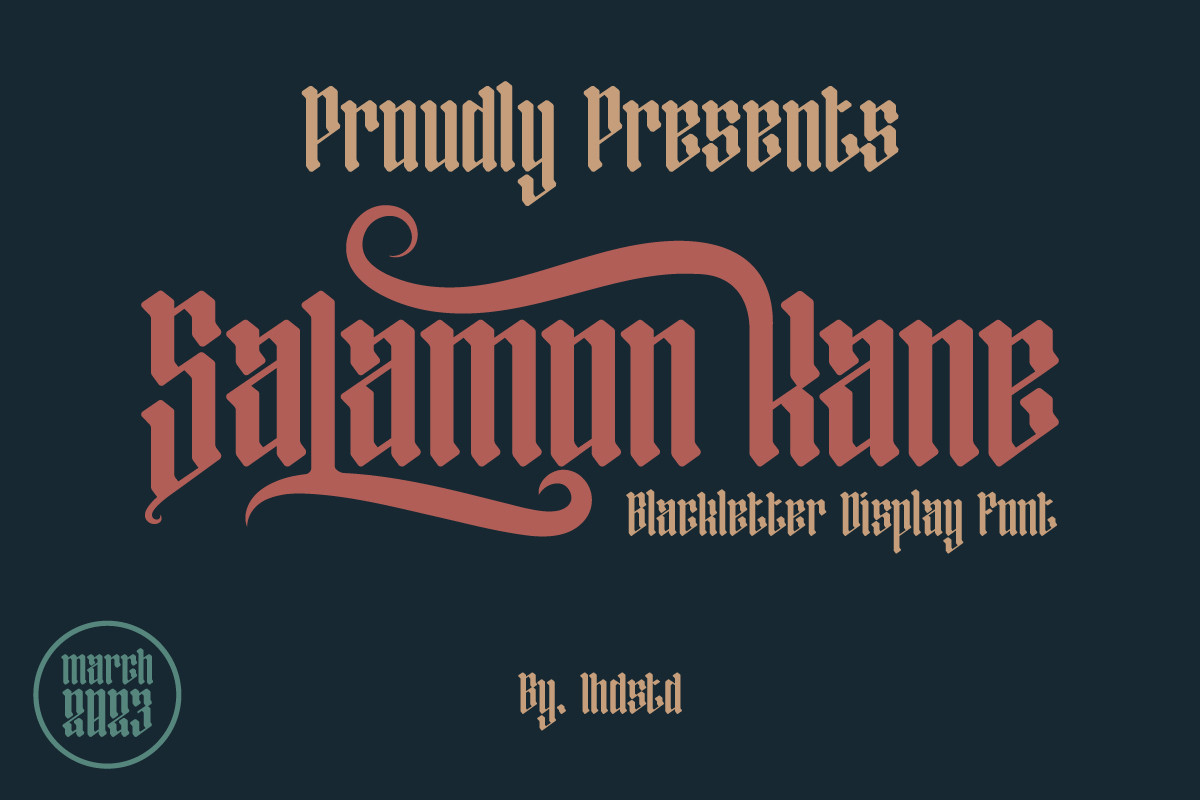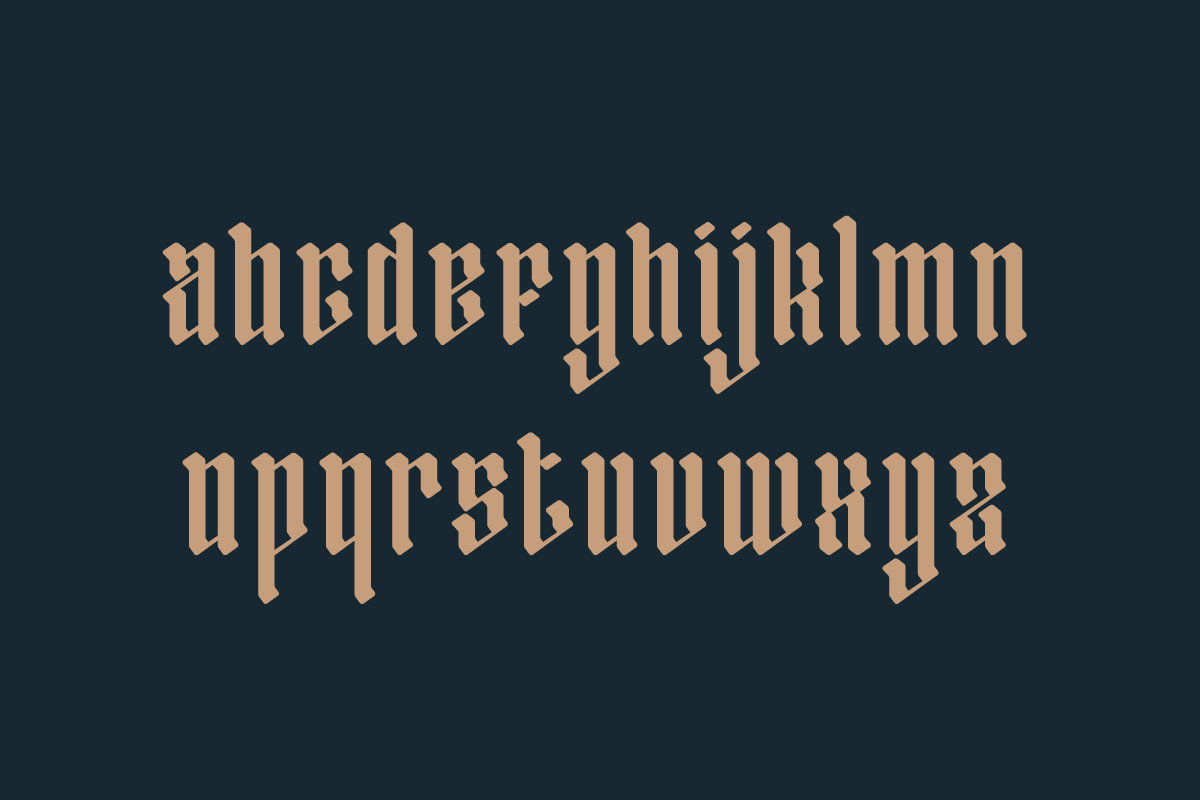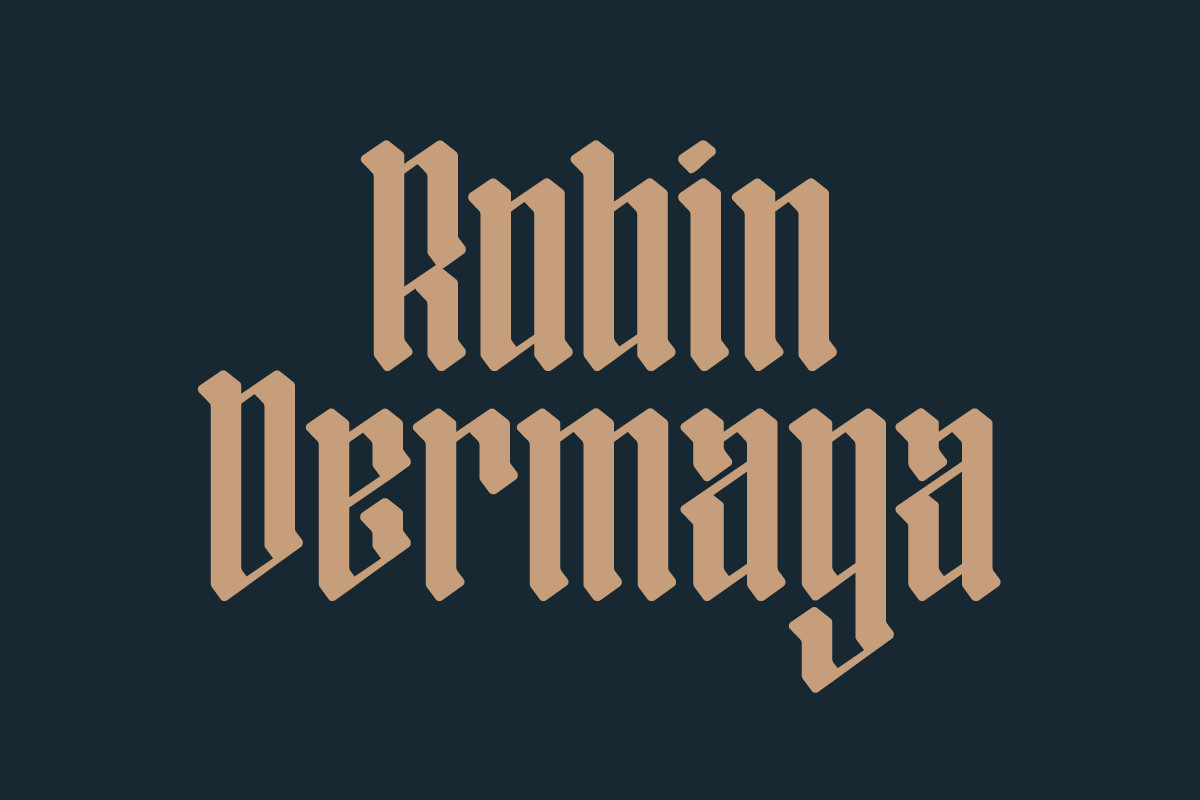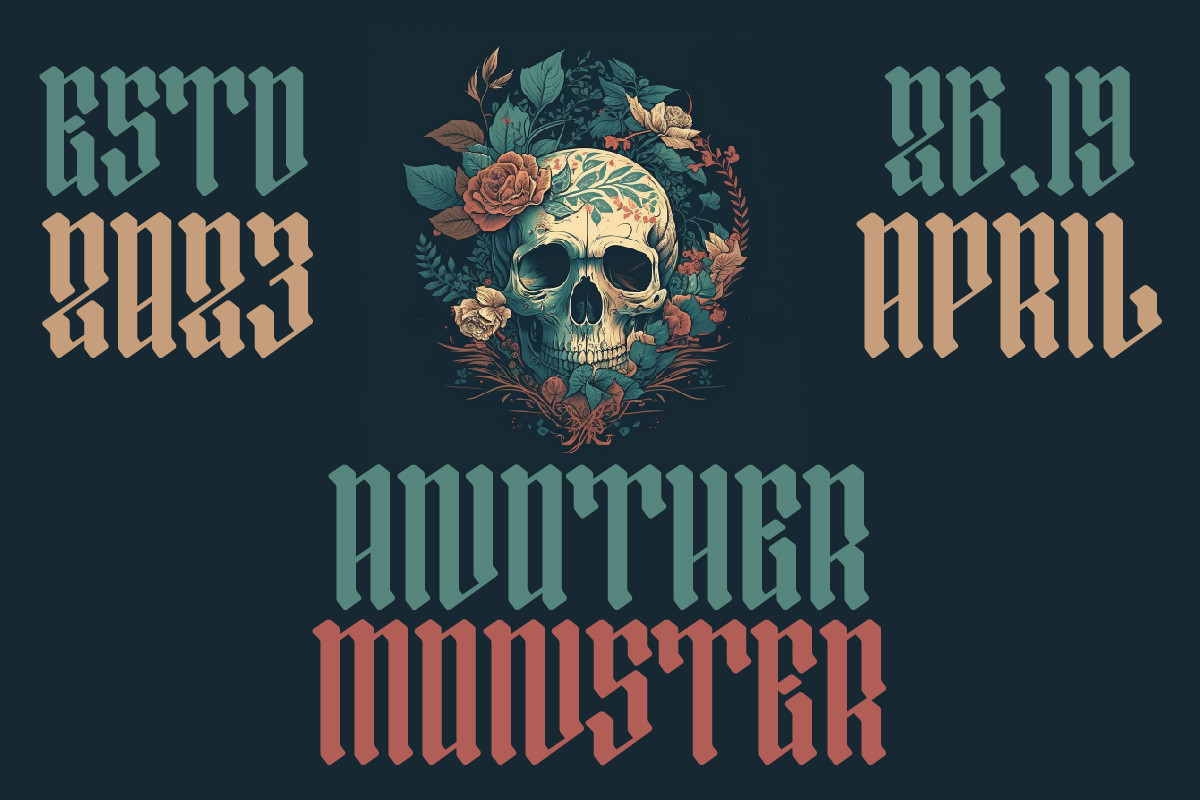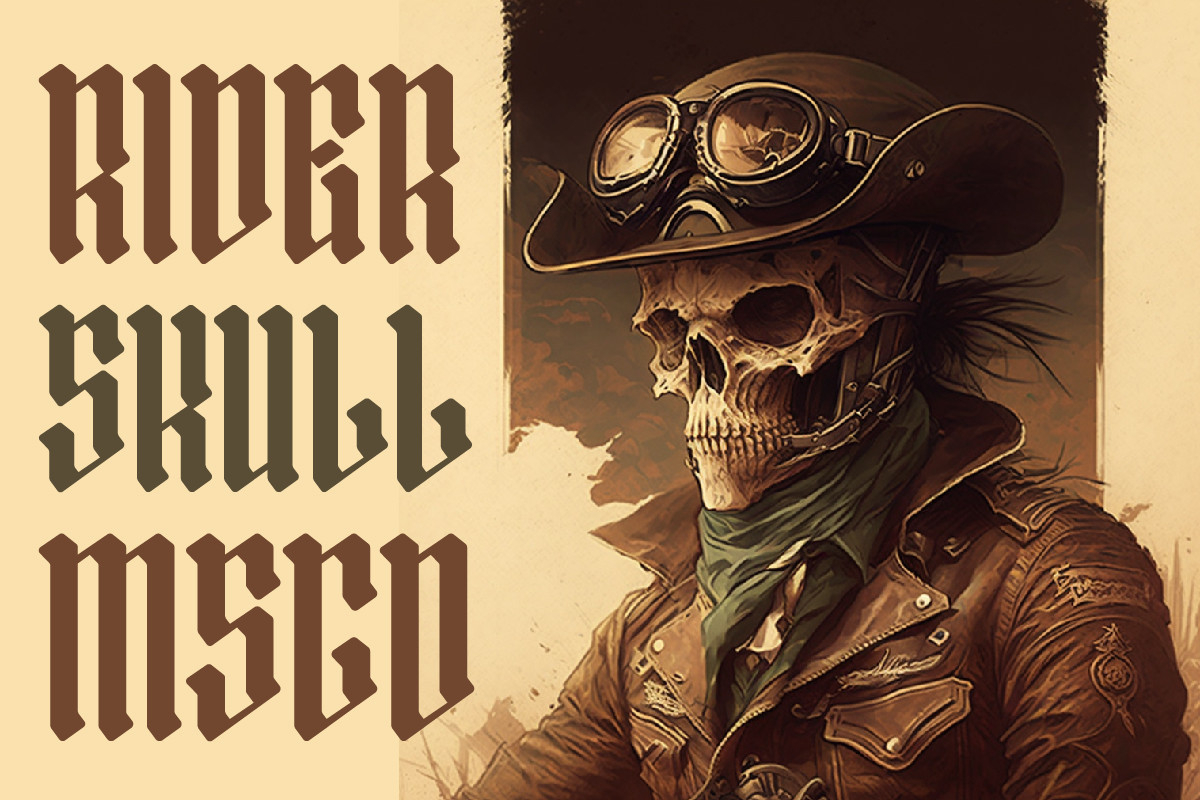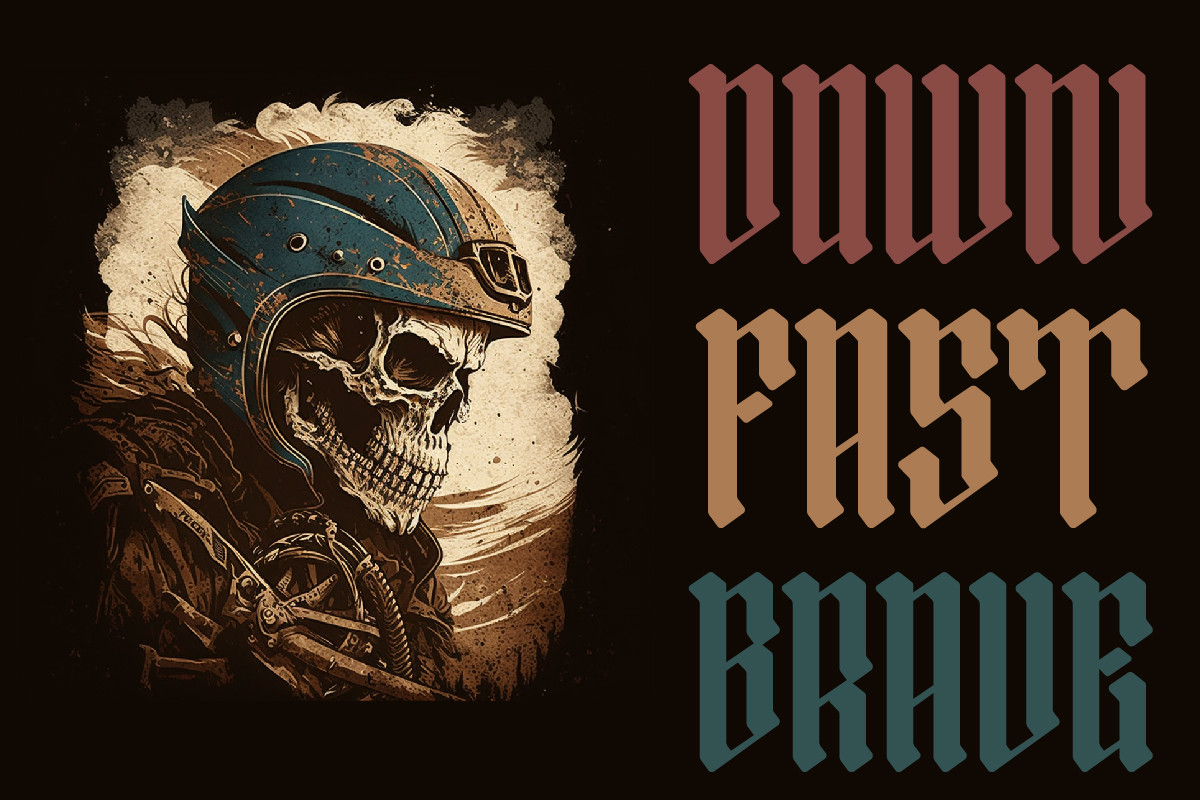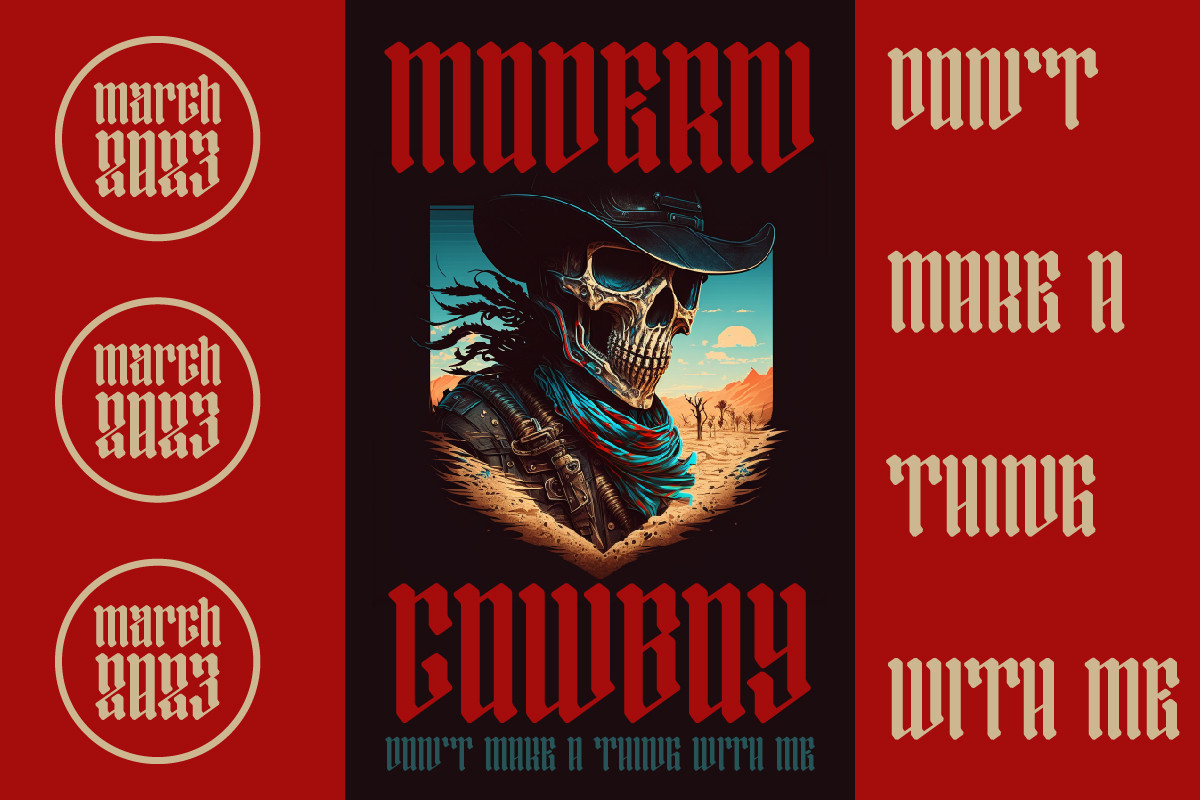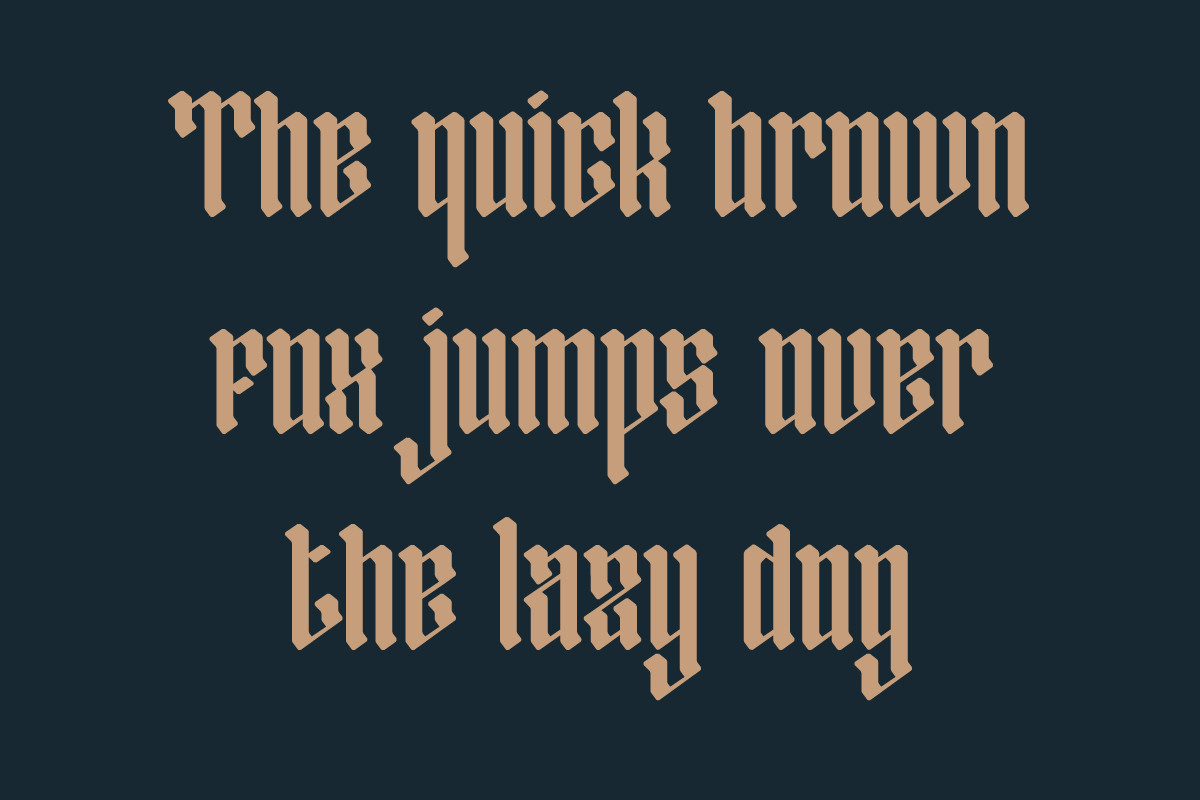
Salamon Kane Font
About Salamon Kane Font
Salamon Kane is a timeless classic that evokes the elegance and sophistication of a bygone era. Its intricate and ornate letterforms exude a sense of luxury and refinement, making it perfect for creating vintage-inspired designs. With its rich history and enduring beauty, this font is sure to leave a lasting impression.